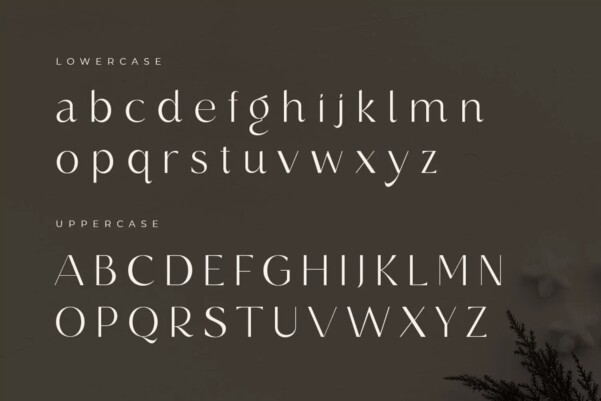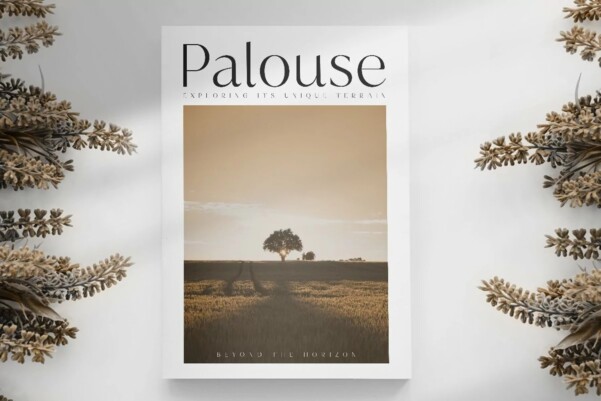
Rangsel Font
Designer: Sensatype Studio
Rangsel Font is a Modern Beauty Classy Font. a new font that we created special for branding needs, with extra ligature in unique characters add value of your brand. It so nice to leverage designer or product owner that need solutions to make their design look more stylish and modern. And specially for satisfy font, We prepared any ligatures, and any alternate characters to help you create unlimited variations for your creative needs.